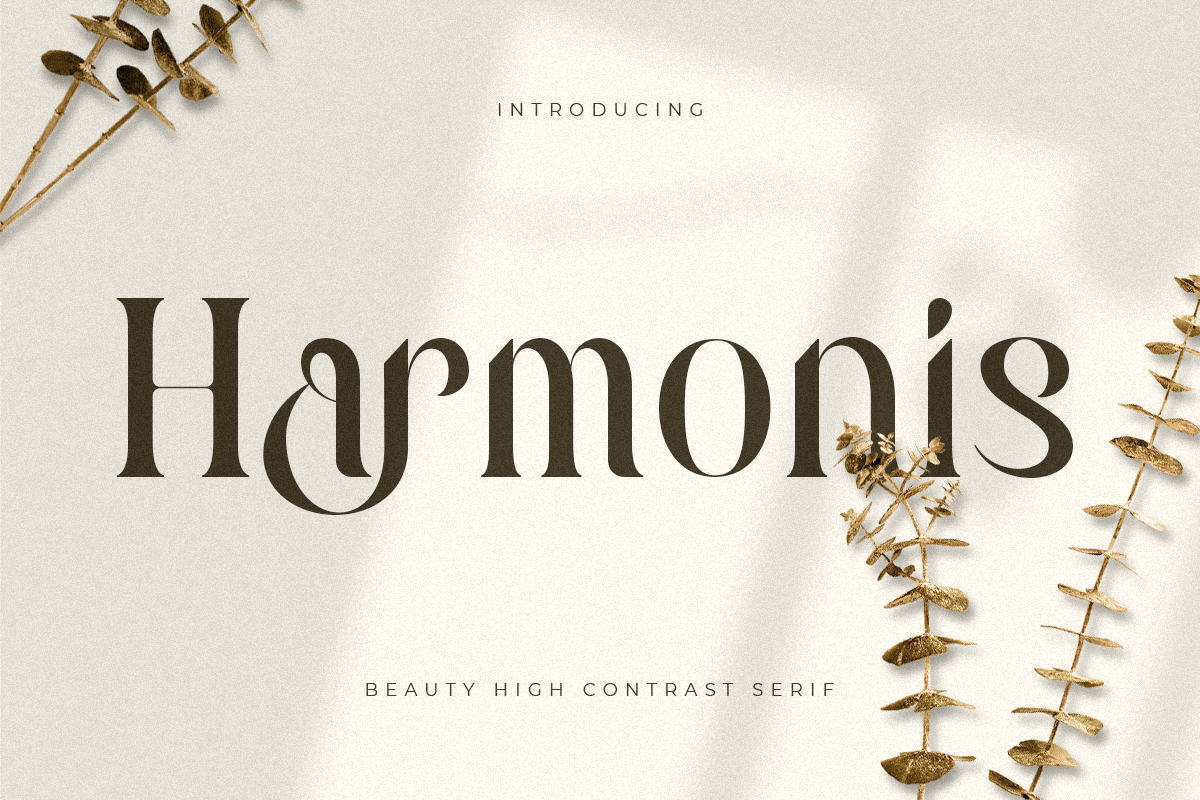
Harmonis
A Serif font that we created special for beauty branding needs, with extra ligatures in unique shape will be ready to add value of your brand. It so nice to leverage designer or product owner that need solutions to make their design look more beauty and modern. And specially for Harmonis font, We prepared any ligatures characters to help you create unlimited variations for your creative needs.
Harmonis Serif font ready with:
Any options to get creative variations (combination of Ligatures)
Preview as a inspirations that you can do with Harmonis font